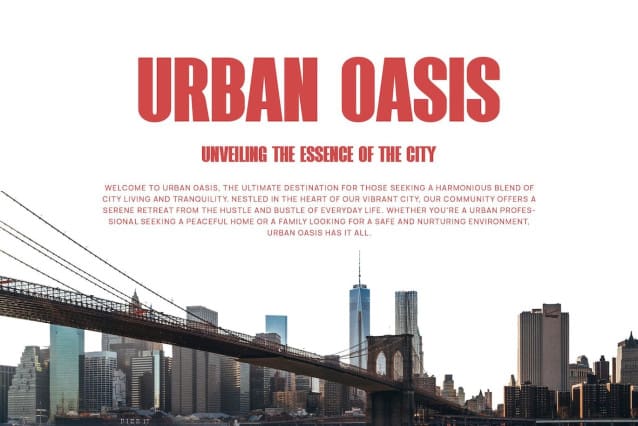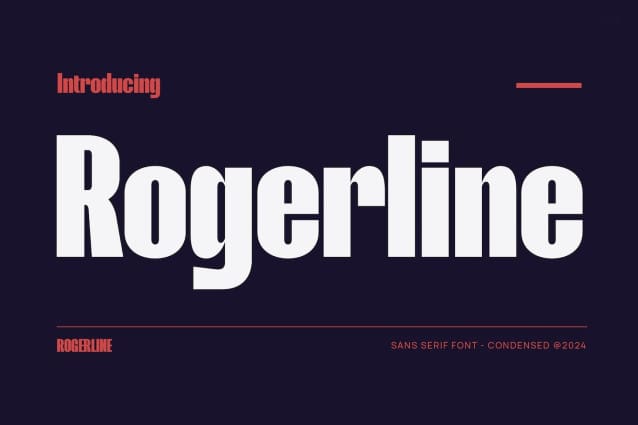
Rogerline Font
Rogerline Font, a modern sans serif font with an elegant style, perfect for brands, logos, invitations, magazines, product packaging and more.